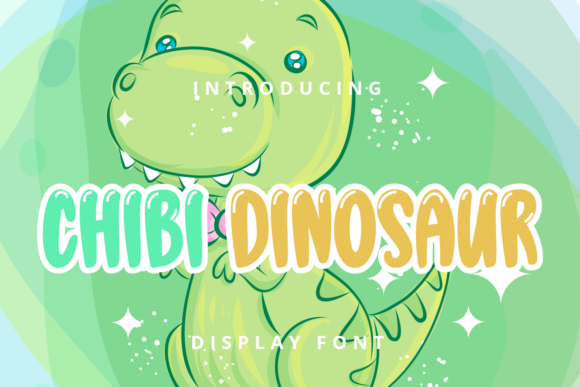
The Joy of Typography: Bringing Imagination to Life with Chibi Dinosaur Font
Remember the thrill of designing a project as a child, pouring your heart and soul into every detail, and watching it come to life? For many creatives, this sense of wonder and excitement never fades. As designers, we’re constantly seeking ways to tap into that childlike imagination and bring our ideas to life in a way that’s both authentic and engaging. This is where the Chibi Dinosaur Font comes in – a font that perfectly captures the essence of playfulness and creativity.
This adorable display font is designed specifically for children’s activities and school projects, making it the perfect choice for designers who want to add a touch of whimsy to their work. With its bubbly and endearing style, the Chibi Dinosaur Font is not only a valuable tool for designers but also a testament to the power of typography in bringing imagination to life.
Chibi Dinosaur Font Key Features
- Unique Characteristics: The Chibi Dinosaur Font features a distinctive, cutesy style with a focus on rounded shapes and playful details, making it perfect for children’s books, educational materials, and other designs that require a friendly and approachable tone.
Chibi Dinosaur Font Review
Overall, I think the Chibi Dinosaur Font is a cute and playful addition to any design project. It’s perfect for creating a fun and whimsical atmosphere, especially when used for titles or headings.
- ✨ Unique and quirky design that stands out from more traditional fonts.
- ✨ Great for creating a nostalgic or retro vibe.
- ✨ High-resolution images available for clear and crisp display.
- ⚠️ Limited font sizes and weights available, which may limit its versatility.
- ⚠️ May not be suitable for formal or professional projects due to its playful nature.
- ⚠️ Some characters may be difficult to read or interpret, especially for users with visual impairments.
Overall, I would give the Chibi Dinosaur Font 3.5 out of 5 stars. It’s a great choice for designers who want to add a touch of whimsy to their projects, but may not be the best fit for more formal or professional work.
Getting the Most Out of Chibi Dinosaur Font
For the best results, use Chibi Dinosaur Font in bold or italic styles to add emphasis and visual interest. Experiment with different font sizes and colors to create a unique look. Consider combining Chibi Dinosaur Font with other playful fonts for a whimsical feel.
Chibi Dinosaur Font is perfect for:
– Children’s party invitations and decorations
– Educational materials and textbooks
– Social media graphics and advertisements
– Branding and logo designs with a playful twist